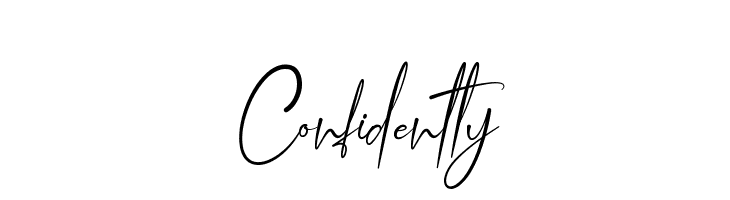
An elegant, flowing script font with a handwritten style.
A dynamic and elegant script font with fluid, cursive strokes.
A bold, geometric font with a 3D shadow effect, ideal for striking headlines.
A bold, expanded sans-serif font with a modern and geometric style.
A bold, angular font with a geometric and modern style.
A playful, hand-drawn font with bold, rounded characters and a whimsical style.
A modern, oblique sans-serif font with a light and clean design.
A bold, playful font with rounded, bubbly characters.
A bold, geometric font with playful and dynamic shapes.
A bold, angular font with a futuristic and dynamic style.